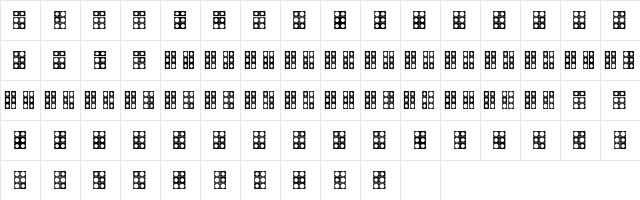
WLM Braille 4 Regular
| Designer | Wolf Lambert |
WLM Braille 4 offers clean, dependable letterforms without strong stylistic allegiance, making it a practical choice for designers who need flexibility.